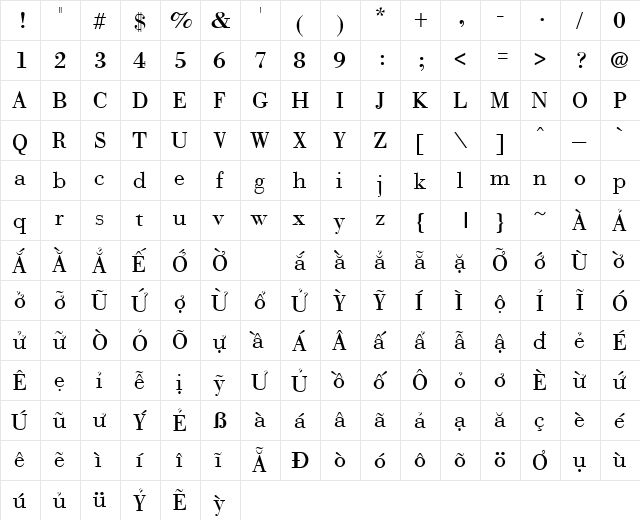
VPS Con Son Regular
Design Context for VPS Con Son Typeface
VPS Con Son takes a measured approach to typography — its balanced proportions and neutral character make it a reliable workhorse for both digital and print work.